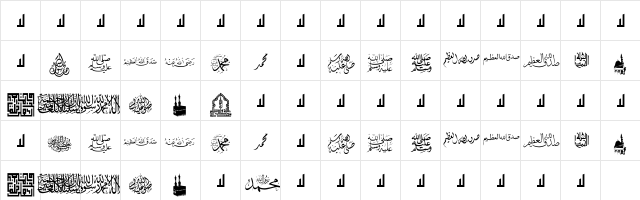
MCS P_Mohammad. Normal
Design Context for MCS P_Mohammad. Typeface
MCS P_Mohammad. is a composed and adaptable typeface that performs quietly and consistently across a wide range of design contexts.